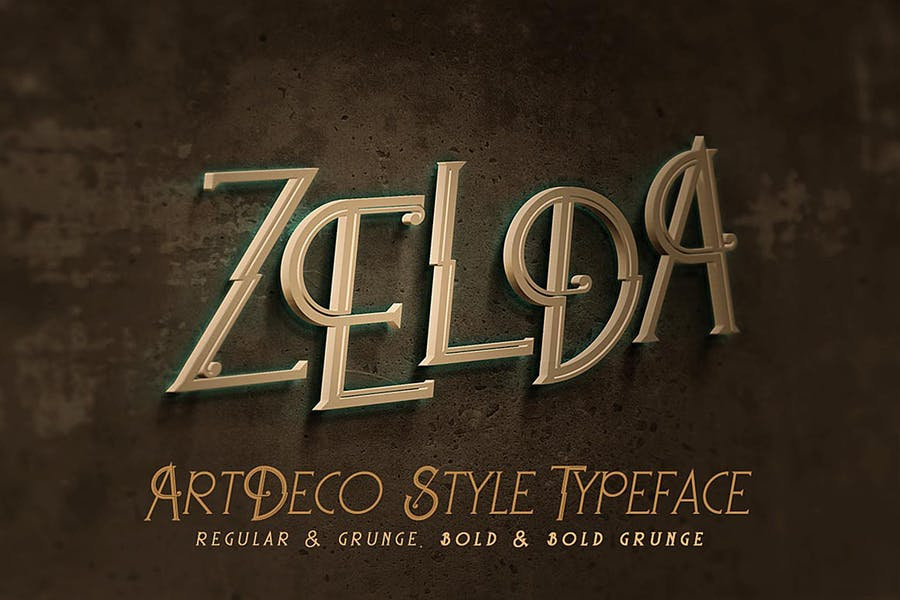
Zelda - ArtDeco Font
This sophisticated Art Deco typeface is perfect for luxury branding, elegant poster design, upscale restaurant menus, premium packaging, fashion magazine headlines, hotel signage, jewelry advertisements, and high-end event invitations.
What makes this font exciting is its stunning geometric elegance that perfectly captures the glamour and sophistication of the 1920s Art Deco movement. The bold angular lines, symmetrical patterns, and luxurious proportions create an immediate sense of opulence and refinement, while the distinctive decorative elements add timeless architectural beauty to any design.
The Zelda - ArtDeco Font family includes regular, bold, and ornamental weights, along with decorative borders and period-appropriate symbols that complete the authentic Art Deco design experience for comprehensive luxury applications.
The remarkable personality of Zelda - ArtDeco Font emerges through its precise geometric construction and ornate decorative details. Each character embodies the mathematical precision and artistic flair characteristic of the Art Deco era, featuring sharp angles, elegant curves, and symmetrical beauty. This exceptional attention to period-specific design elements makes it particularly suitable for upscale establishments, luxury product launches, premium wedding stationery, and exclusive member clubs requiring authentic 1920s aesthetic appeal.
Design professionals will appreciate this font's versatility in creating sophisticated visual hierarchies across various luxury applications. From champagne labels to casino signage, from theater marquees to boutique hotel branding, Zelda - ArtDeco Font maintains its elegant presence and dramatic impact. The font's comprehensive character set includes essential Art Deco ornaments and decorative elements, ensuring complete design flexibility while preserving the authentic glamour and architectural precision that defined this influential design movement.